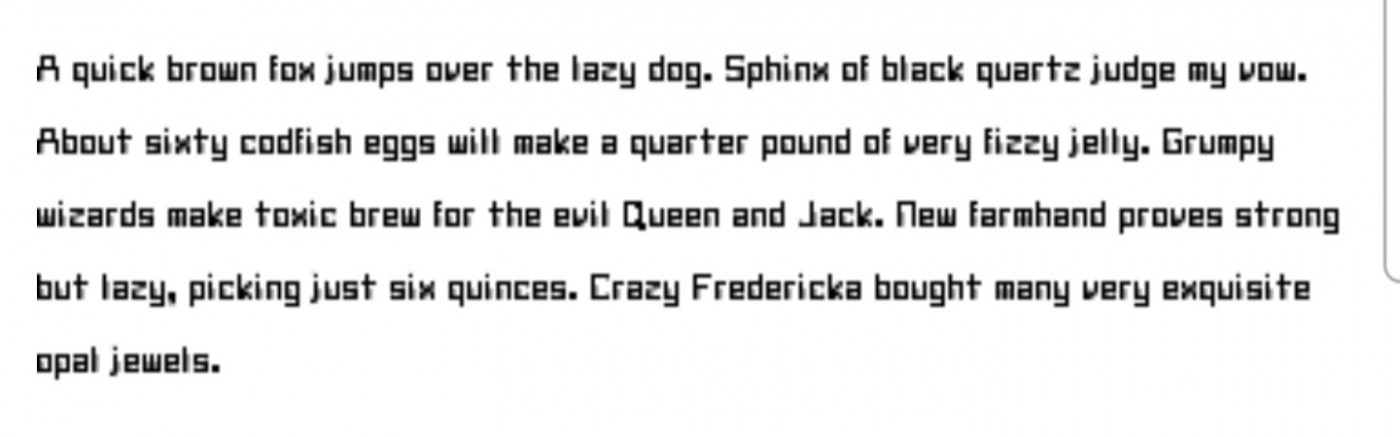
Hey guys, I am working on the Shidinn in Unicode
Shidinn isn't done yet, i'm working on it
Update 1.1: Added Uppercase Final Sigma, Shidinn, and Klingon
Can you make uppercase yev and Hebrew?
And Armenian?
Can you fix lowercase "и" and "й"?
@Fgm12345 Actually, it is a variant form for cursive and upright Bulgarian text.
Add Klingon. Please.
@xXFarmItFan330Xx Klingon is still added
Can you make uppercase E with extra line?
And what else will you add for 1.5?
0E00 Missing Thai Codepoint
Can you fix lowercase ξ, make lowercase ζ long, and dotted Hebrew letters in 1.6?
And Arabic forms?
And Fake Greek?
@Fgm12345 The fake greek in unicode will break thai.
You could put the former in the Private Use Area though
i'm updating it
Update 1.6: add Devanagari (if you can), complete the block "latin extended additional".
Signature ζ: ᶎ
Signature ξ: ℥
and Emoji and Logos
Extended Thai planned
U+0E00 Turned Ko Kai /q/
U+0E60 Kwo Kwang /kw/
U+0E61 Go Kaeng /g/
U+0E62 Gho Kha /gh/
U+0E63 Jo Ju /j/
U+0E64 Dho Thang /dh/
U+0E65 Bho Ban /bh/
U+0E66 Mvo Mam /-m/
U+0E67 Zho Yon /zh/
U+0E68 Vo Wang /v/
U+0E69 Sara Oeh (schwa)
U+0E6A Sara Uh /uh/
U+0E6B Sara Ao /ao/
U+0E6C Dhho Sai /this/
U+0E6D Thho Sen /thin/
I am not sure of the origin of the Thai letters in the comment above.
Why did'nt you add hindi and complete latin extended additional?
because there was no hindi presentation forms
What else will you add for 1.7?
What logo that you added?
Mistakes:
The lowercase и and й look like u and ŭ.
Can you fix the font please?
And can you fix lowercase ζ and ξ?
Can you add more logos?
and some unused Hebrew letters?
Can you add “№” please?